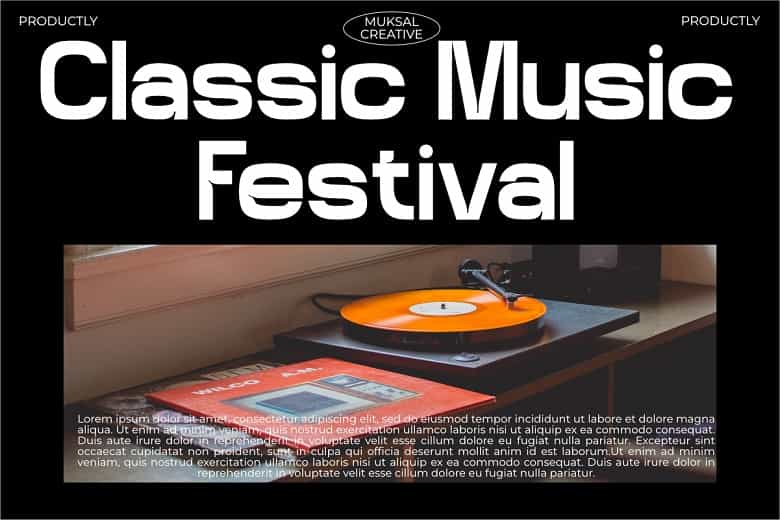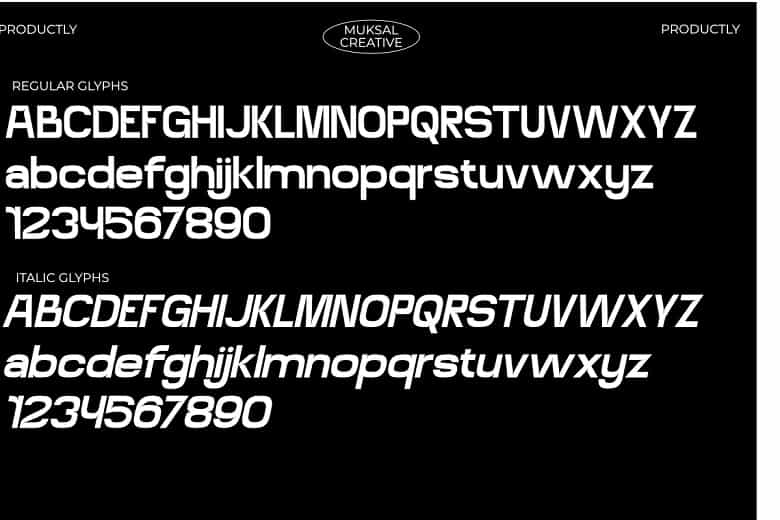
Geoforce Font
Geoforce is a sans serif font with the features of a powerful and modern font where it contain geometric shapes and the thickness of the font gives it the feeling of strength and movement. This font is best suited for projects that have a futuristic and edgy appeal, for instance, tech logos, posters, and any design that needs to get attention.